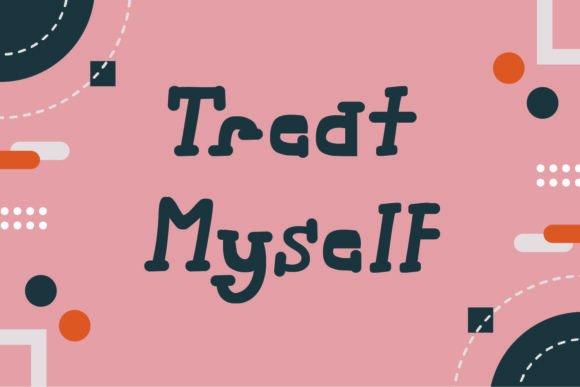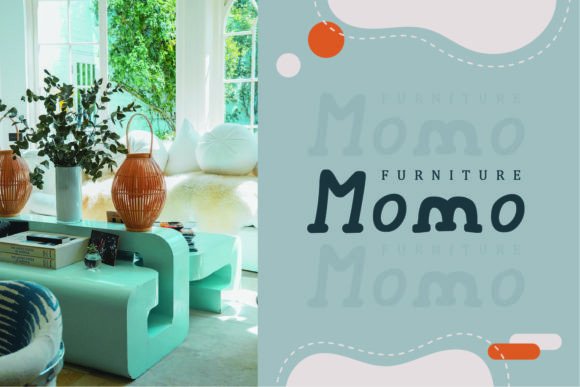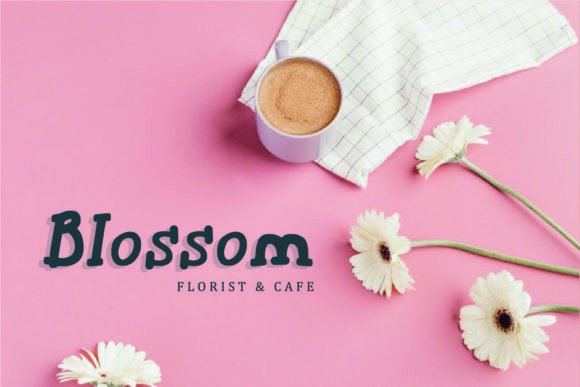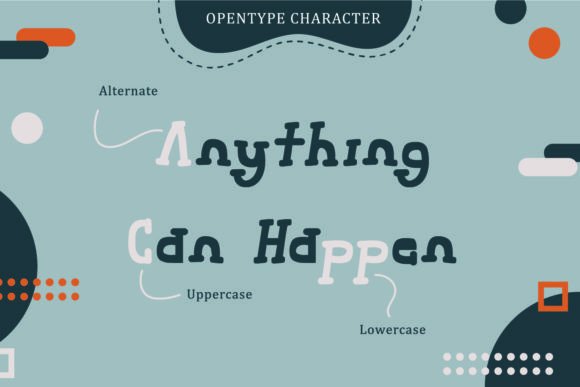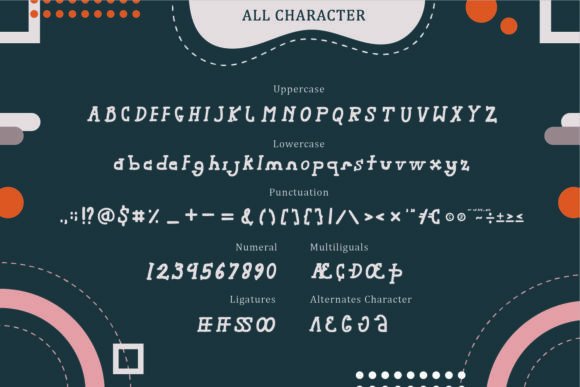
Introduction to Smokey Font
Smokey is a fun and unique display font.
Key Features of Smokey Font
Why Choose Smokey Font?
Smokey Font offers exceptional quality and versatility, making it a valuable addition to your design toolkit. Whether you’re creating for personal projects or commercial use, Smokey Font delivers professional results.